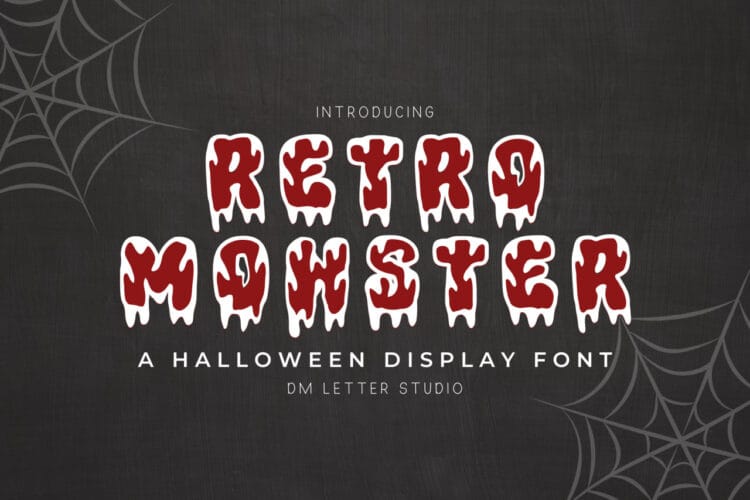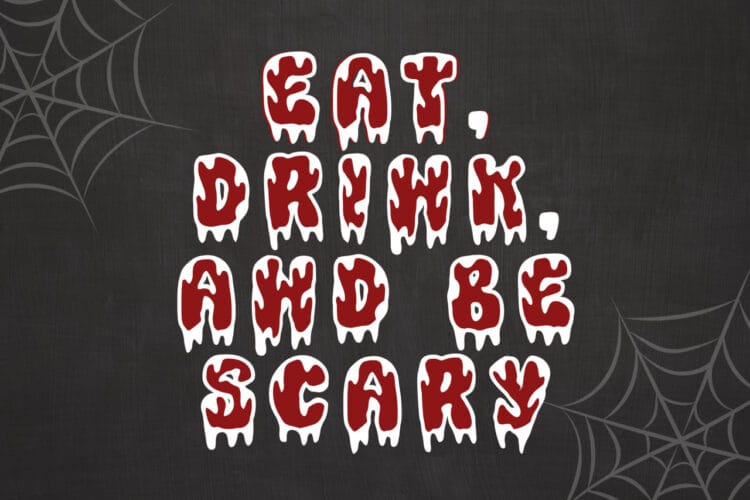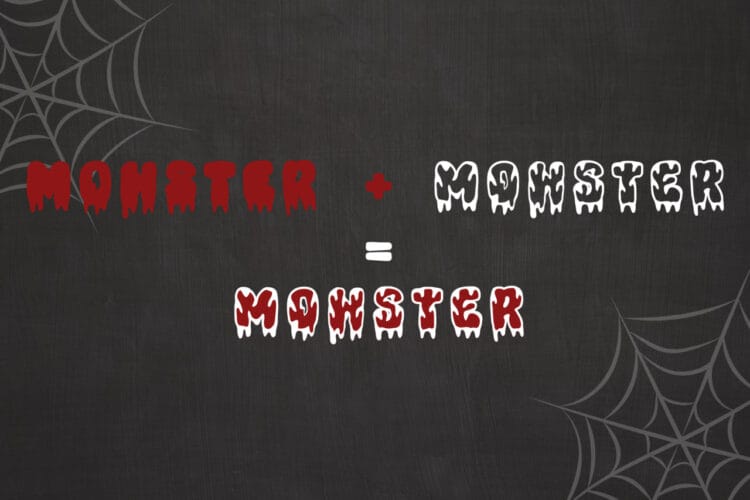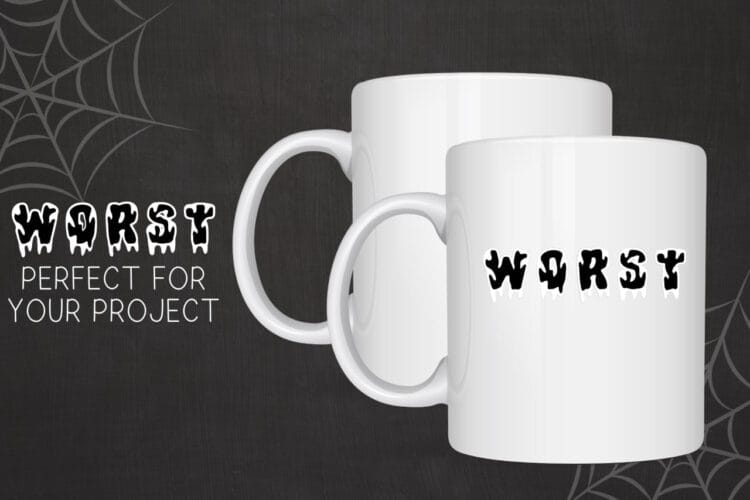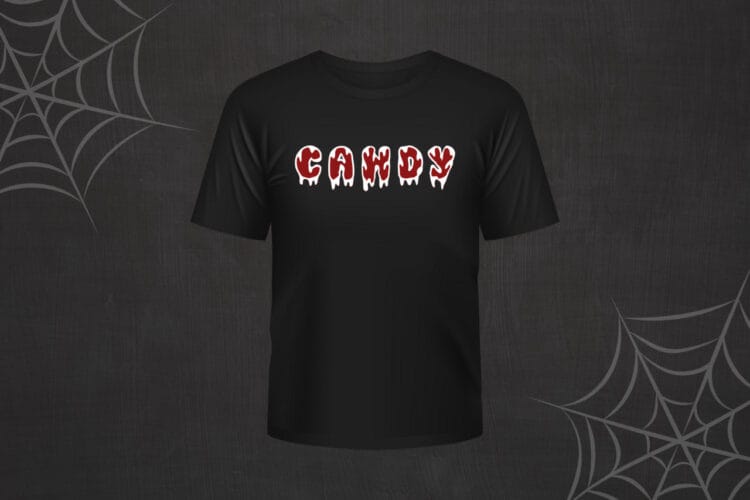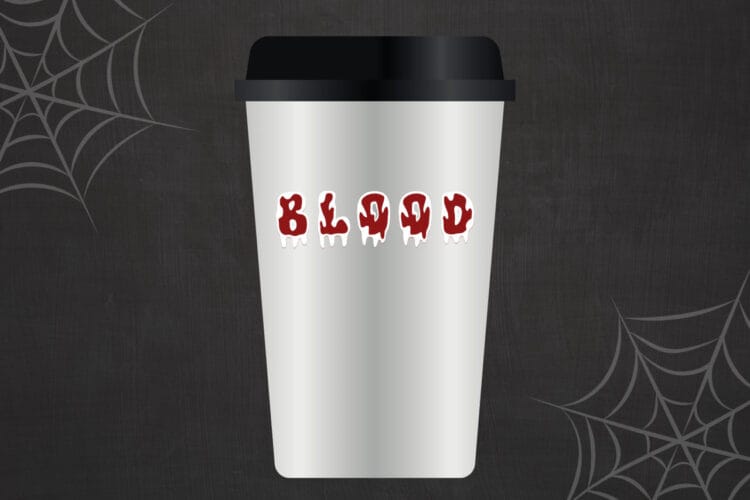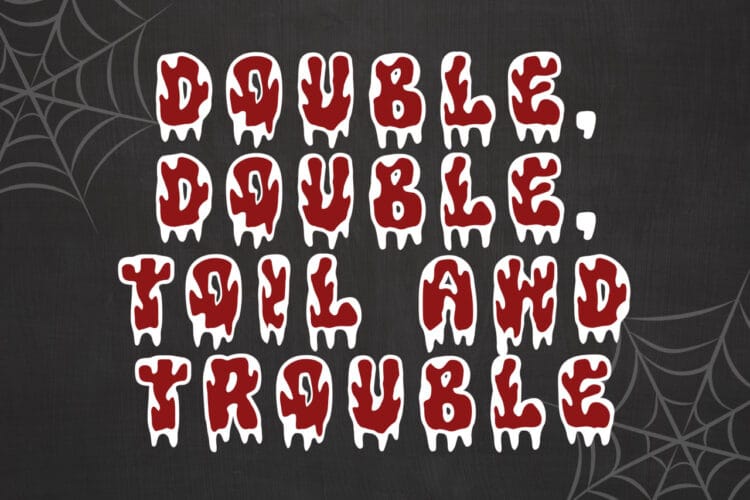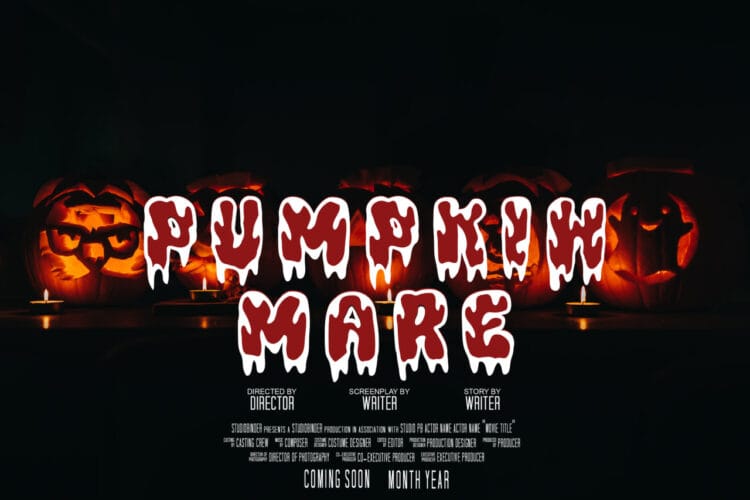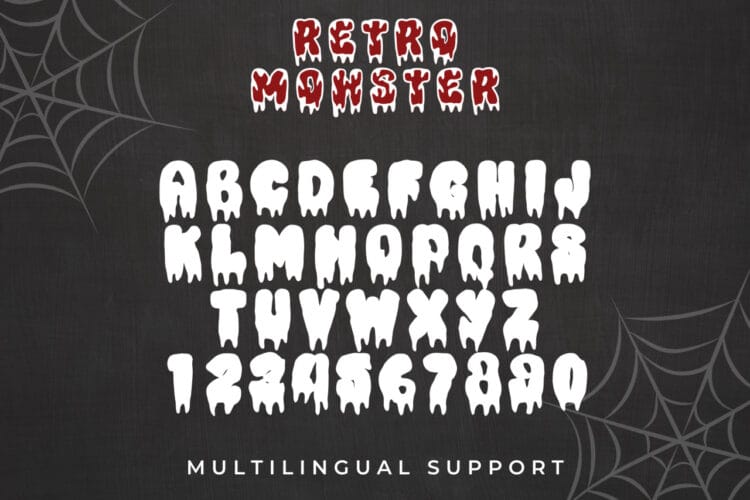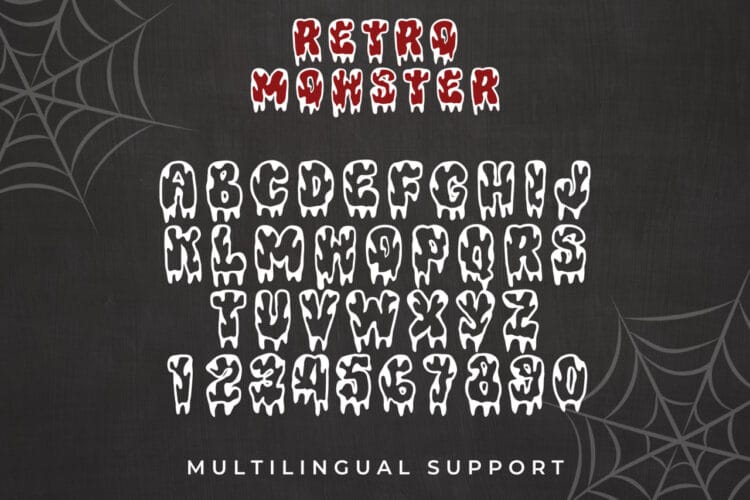
Meet the Retro Monster Font
Retro Monster Font brings playful spooky vibes into bold, retro letters. Shapes feel chunky, rounded, and easy to read. Little monster details give each word a fun scare, not harsh horror. Because the forms stay thick and clear, your titles pop on shirts, posters, and thumbnails. Use it for Halloween drops, monster parties, gaming graphics, and kid-friendly designs. Moreover, it works well on both dark and light backgrounds, so you can switch themes fast.
Where Retro Monster Font shines
Set short phrases like “Monster Party,” “Boo Crew,” or a kid’s name. Then add outlines, shadows, or grainy textures for a worn poster feel. Since spacing is tuned for headlines, layouts come together in minutes. As a result, you can build full bundles for party kits, sticker packs, and social posts. Plus, the letters stay clear at small sizes, which helps on mobile and tags.
Design fun scares with Retro Monster Font
Keep copy short and let Retro Monster Font lead the scene. Pair it with a clean sans for body text and details. Meanwhile, explore color sets like slime green and purple, orange and charcoal, or neon on black. Because the shapes are bold and rounded, glow, gradients, and light grain all look great. However, avoid long sentences on tiny labels. Names, dates, and bold phrases give the strongest impact.
Styling tips for retro spooky vibes
Use curved baselines for a bouncy, cartoon feel.
Add sticker borders for kids’ tees and notebooks.
Try halftone dots and vintage textures for poster art.
Mix Retro Monster Font with simple icons like stars, ghosts, and lightning bolts.